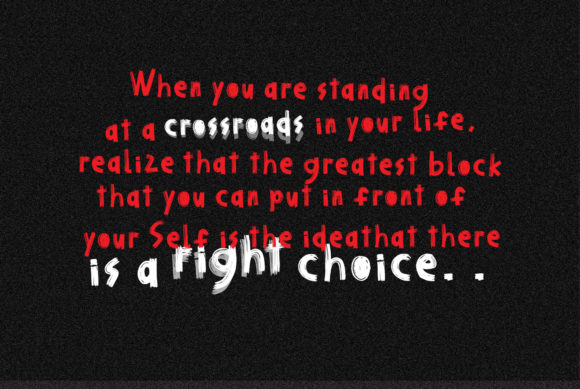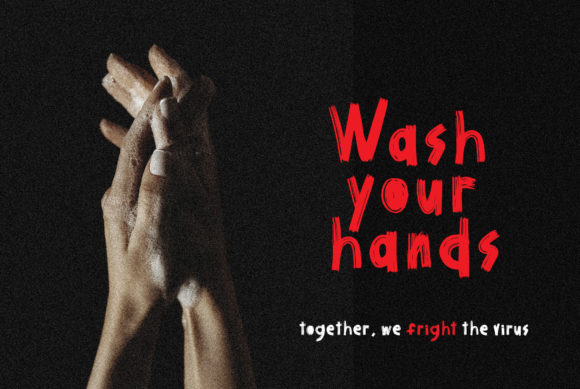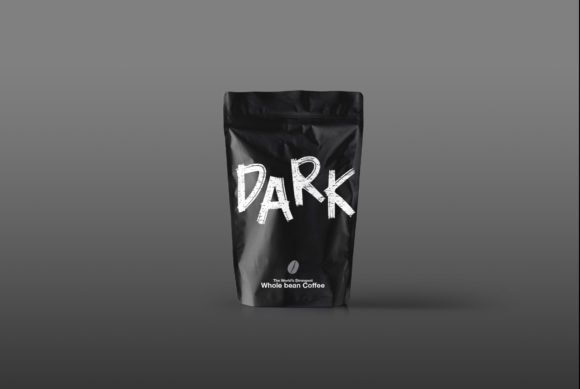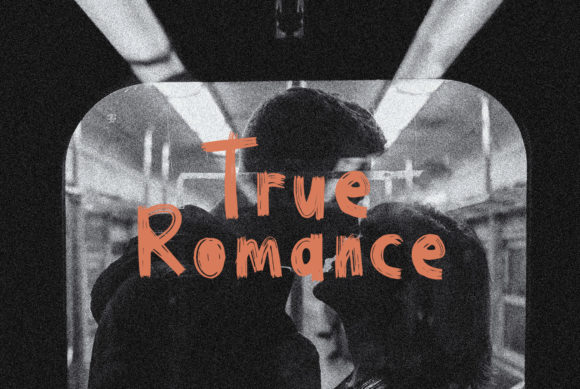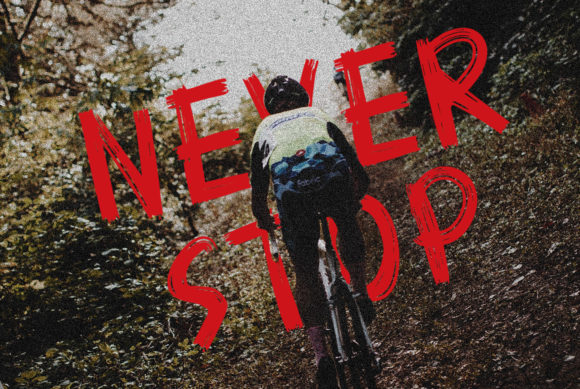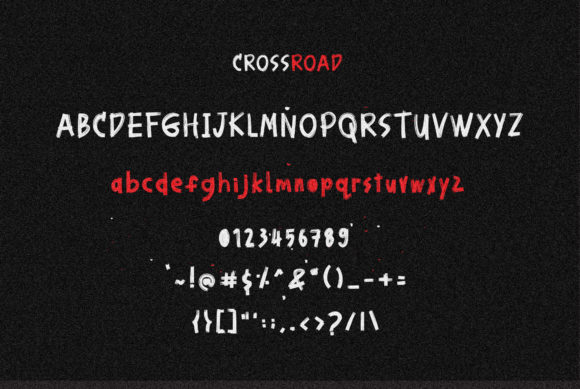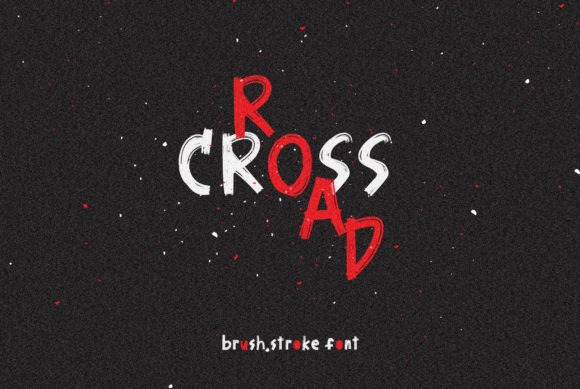
Discover the Unique Charm of Crossroad Font: Where Simplicity Meets Roughness
Are you a designer or crafter looking for a font that can add a touch of personality to your creative projects? Look no further than the Crossroad Font. This gorgeous display font is characterized by its simplicity and roughness, making it the perfect addition to your design toolkit. In this article, we’ll explore the unique features of Crossroad Font and how it can bring your ideas to life.
The Beauty of Simplicity and Roughness
Crossroad Font is a masterclass in balancing simplicity and roughness. At first glance, the font appears straightforward and uncomplicated, with clean lines and a clear structure. However, upon closer inspection, you’ll notice a subtle roughness that adds texture and depth to the letters. This contrast between simplicity and roughness gives Crossroad Font its unique charm and makes it stand out from other display fonts.
Crossroad Font is designed to be versatile and adaptable, making it suitable for a wide range of creative projects. Whether you’re working on a logo, poster, or social media graphic, this font can add a touch of personality and whimsy to your design. The font’s rugged texture also makes it perfect for crafty projects, such as handmade cards, scrapbooking, or DIY signage.
Key Features of Crossroad Font
- Unique blend of simplicity and roughness: Crossroad Font combines clean lines with a subtle texture, creating a distinctive look that’s both modern and rustic.
- Highly legible: Despite its rugged texture, Crossroad Font is incredibly easy to read, making it perfect for headlines, titles, and short paragraphs.
- Versatile: Crossroad Font can be used for a wide range of creative projects, from digital designs to handmade crafts.
- Easy to pair with other fonts: Crossroad Font’s neutral tone makes it easy to pair with other fonts, allowing you to create stunning font combinations.
Tips for Using Crossroad Font
To get the most out of Crossroad Font, here are a few tips to keep in mind:
- Use it as a headline font: Crossroad Font is perfect for grabbing attention, so use it to create bold headlines that draw the reader in.
- Experiment with font sizes: Crossroad Font looks great at a range of font sizes, from large display fonts to smaller body text.
- Pair it with images: Crossroad Font looks stunning when paired with high-quality images or illustrations, adding a touch of texture and depth to your design.
Crossroad Font is a unique and versatile display font that’s perfect for designers and crafters looking to add a touch of personality to their creative projects. With its beautiful blend of simplicity and roughness, this font is sure to bring your ideas to life. Whether you’re working on a digital design or a handmade craft, Crossroad Font is a great addition to your toolkit.
Get Creative with Crossroad Font